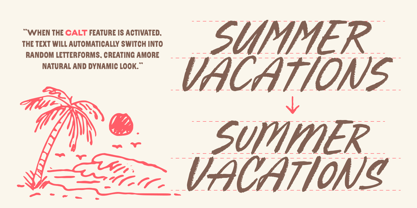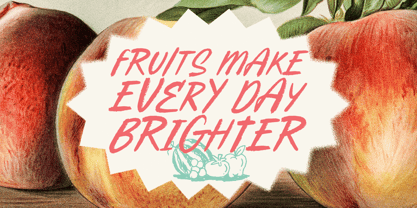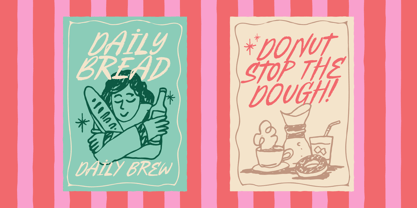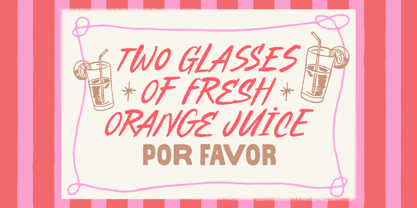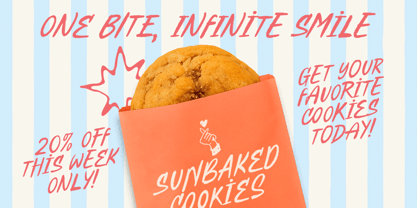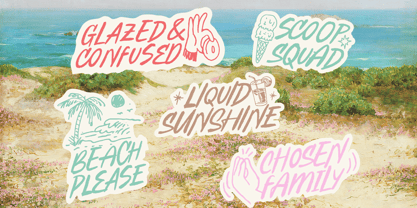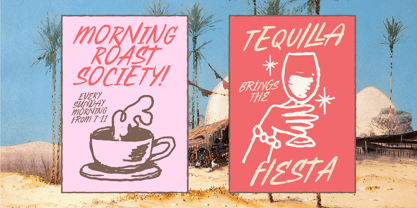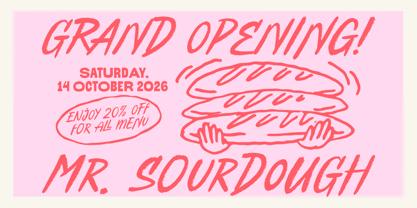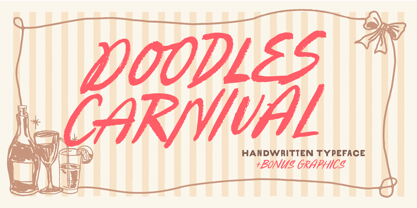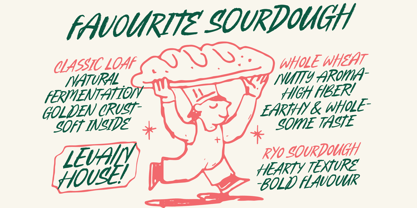
Doodles Carnival
The Doodles Carnival Font Family was designed by Bagas Ferdiansah, Septianto Nugroho and published by The Native Saint Club. Doodles Carnival contains 2 styles and family package options. More about this family
TNSC Doodles Carnival is a bold and playful handwritten typeface bursting with energy. Featuring expressive brush strokes and a natural textured look, it brings a cheerful, carnival-inspired vibe to any design project.
The set includes 2 styles (Regular & Dingbats), giving you both expressive lettering and decorative elements to make your work stand out.